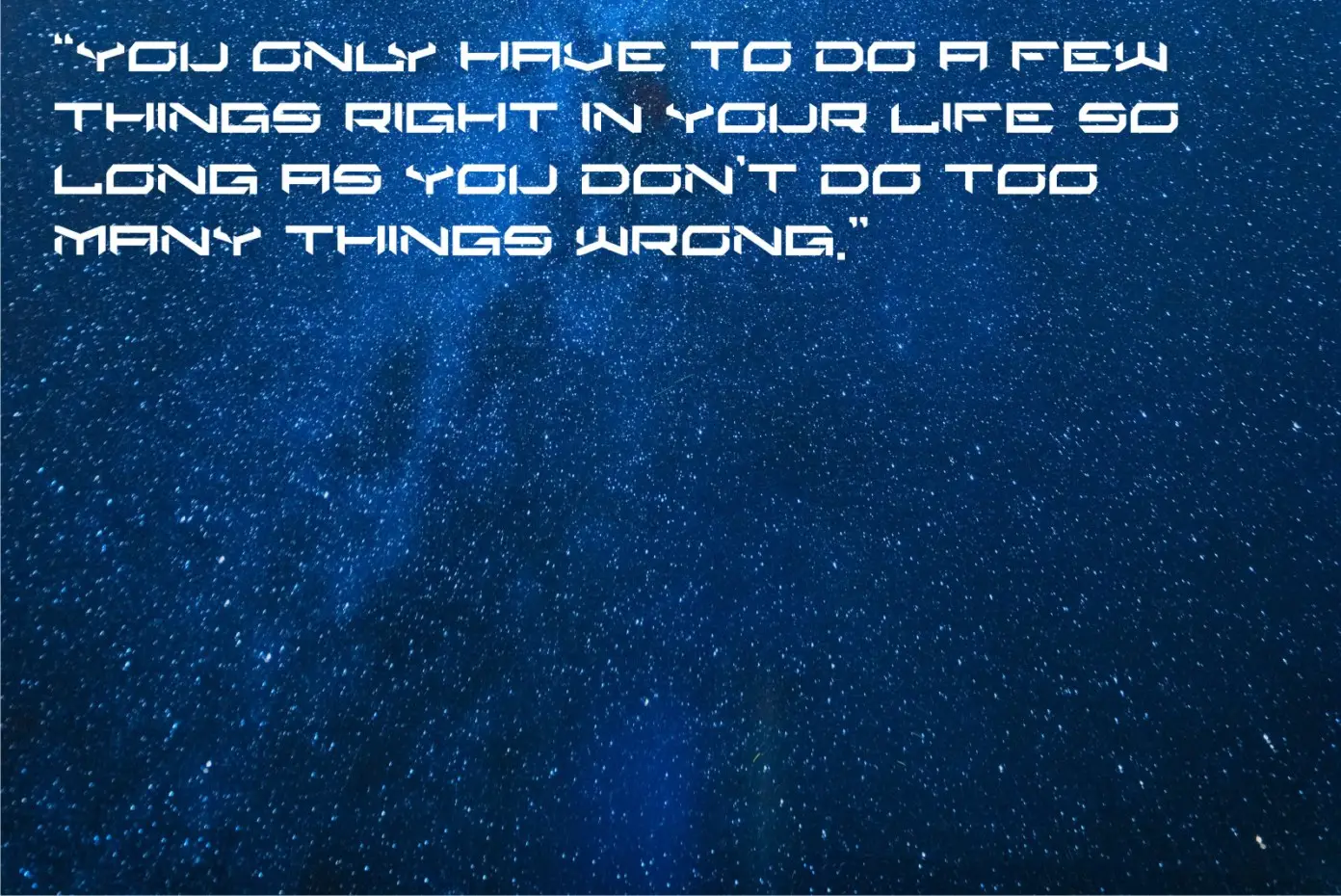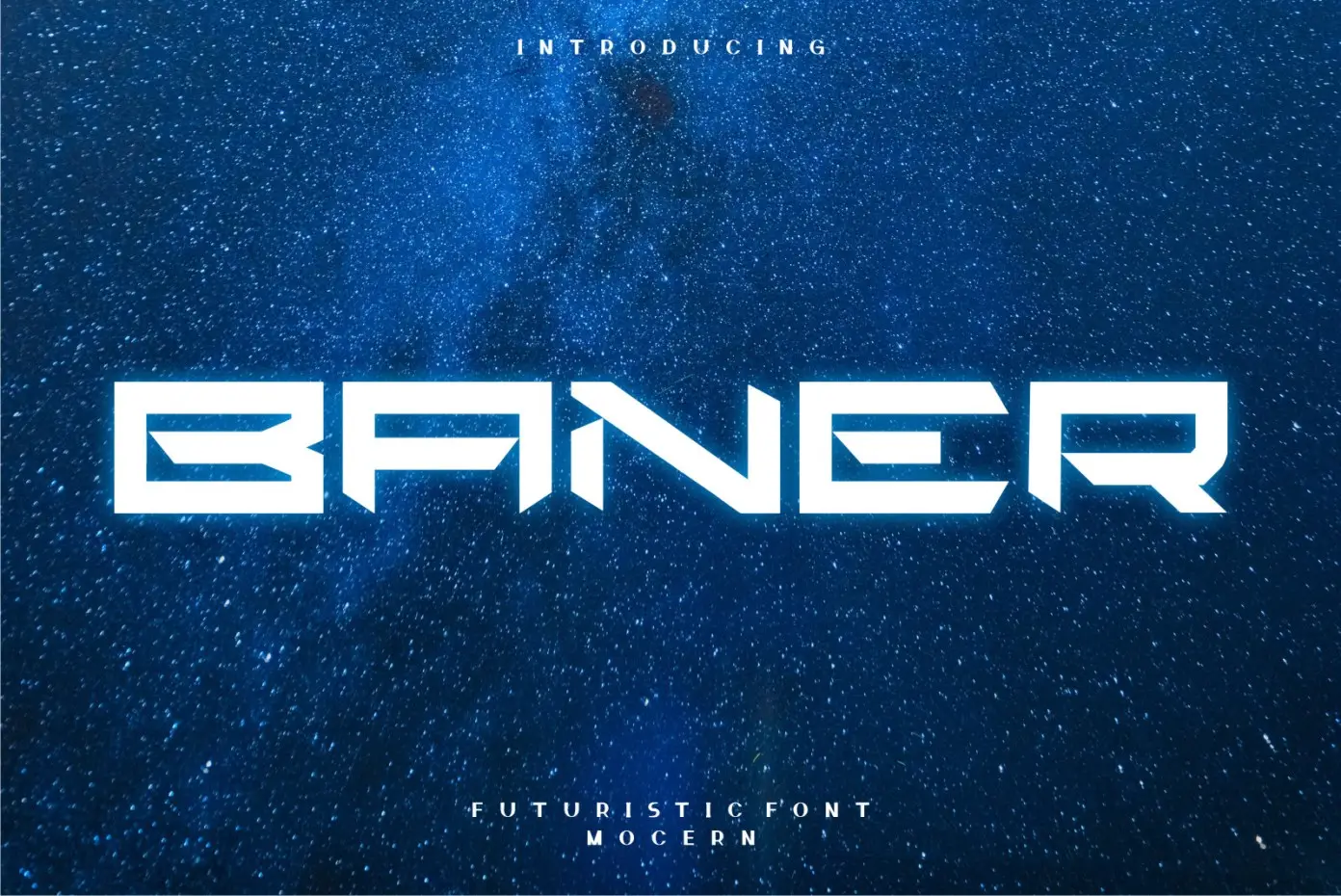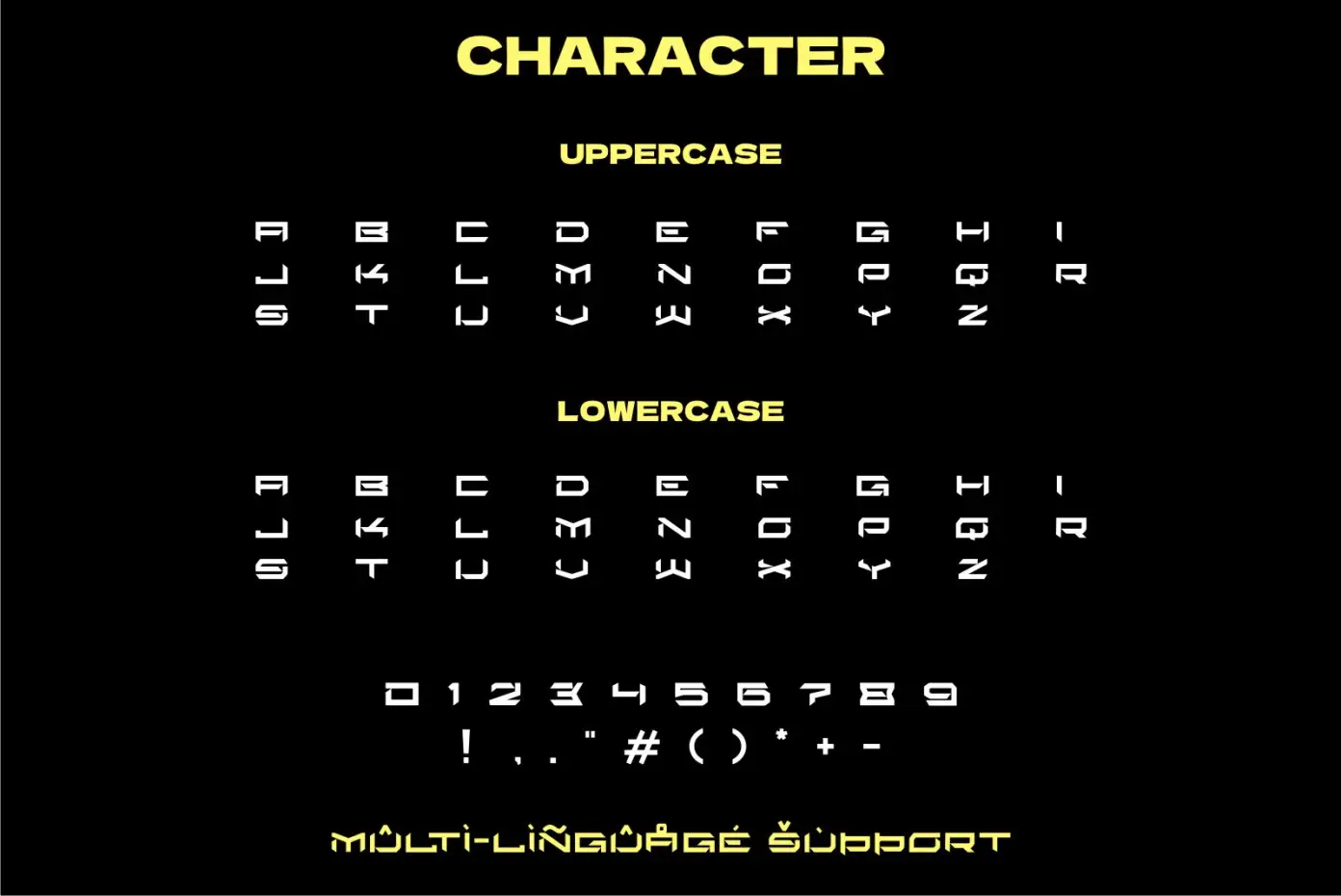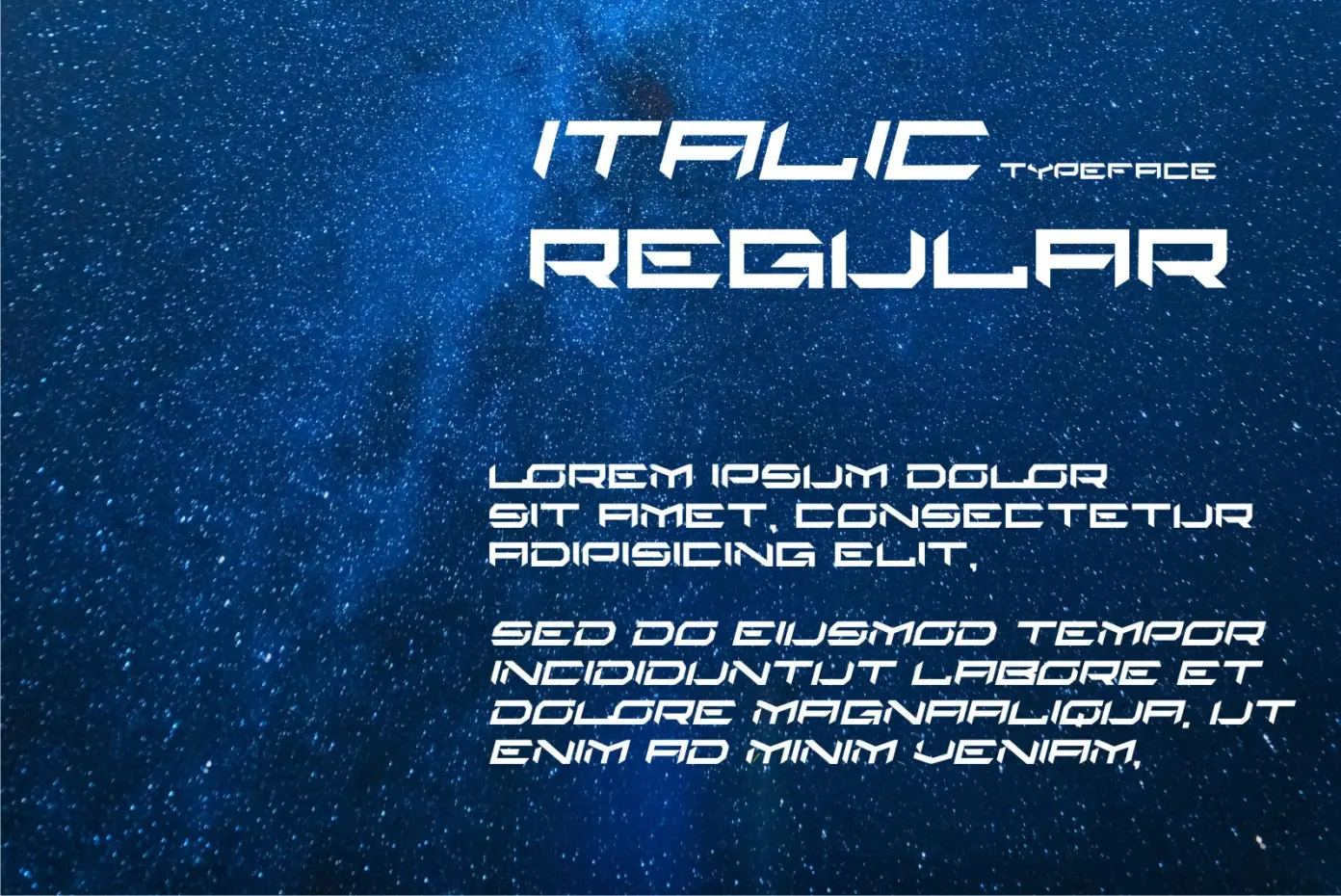
Baner Font
The Baner Font is a versatile typeface designed for a variety of applications. With its clean lines and modern aesthetic, it is perfect for branding, logos, web design, and print materials. This font family includes multiple weights, allowing for flexibility in design projects.
• Multiple font weights for diverse design needs
• Clear and legible characters
• Stylish and contemporary look
• Ideal for creating eye-catching logos and promotional materials
• Use in web projects to enhance user experience with its readability
• Perfect for print designs like flyers, business cards, and posters